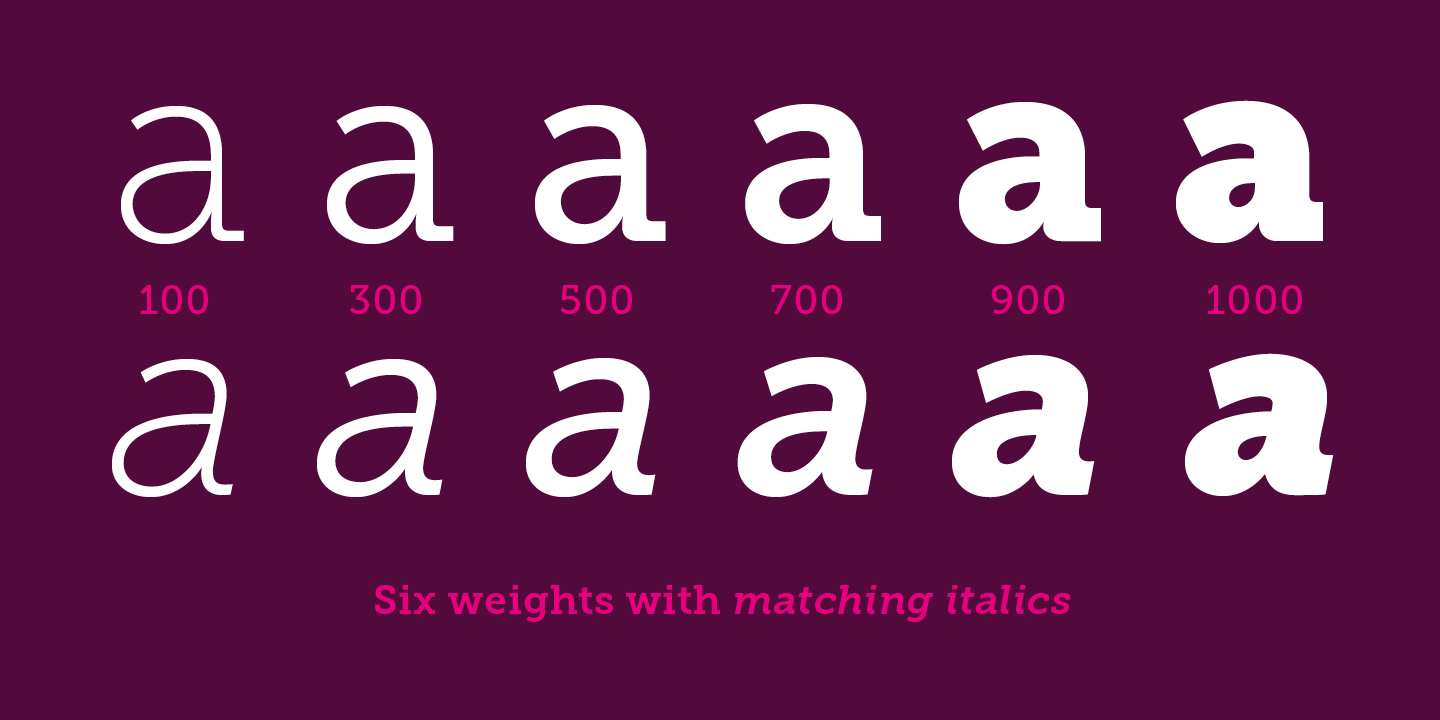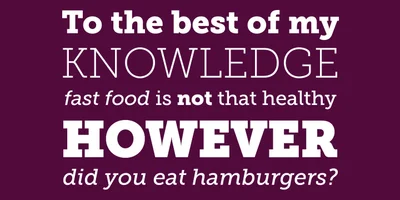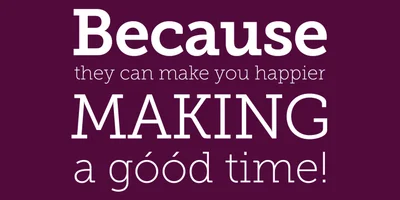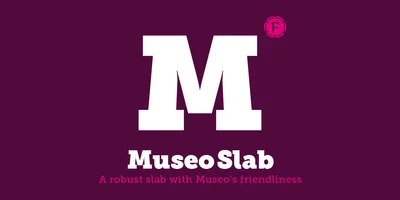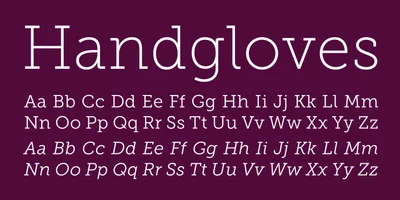
Kepler vs Museo Slab
Kepler and Museo Slab are both serif typefaces sharing a modern foundation. Where Kepler leans transitional, editorial, Museo Slab brings slab serif, geometric. Compare which suits your Editorial project.
| Feature | Kepler | Museo Slab |
| Language Support | latin, latin-extended, cyrillic | latin, latin-extended, cyrillic |
Where You'll See These Fonts
Museo Slab
- Tech startup branding
- Web application interfaces
- SaaS marketing sites
- Modern editorial layouts
- Conference presentations
Recommended: Kepler
- transitional, editorial design character
- Suited for Books and Magazines
Consider: Museo Slab
- slab serif, geometric design character
- Suited for Tech and Web Design